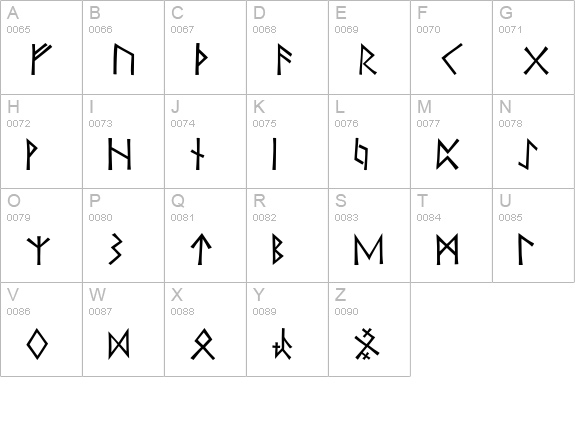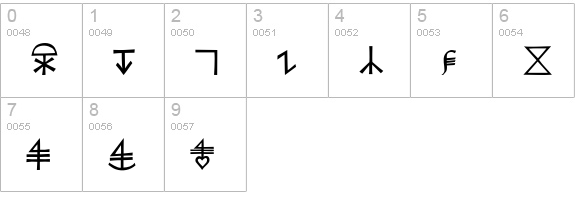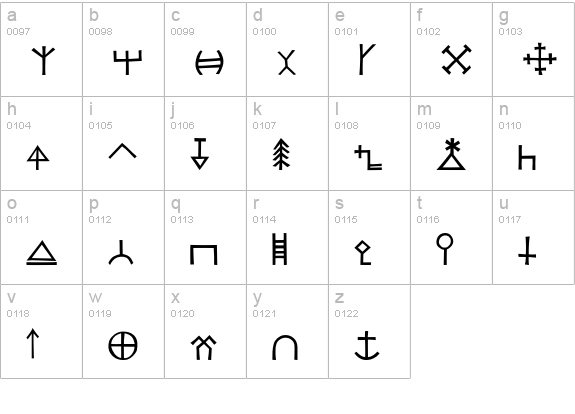
KochSignsFive Font Details
KochSignsFive is a modern and stylish font that perfectly balances elegance with a touch of playfulness. Its unique design features clean lines and geometric shapes, making it ideal for a wide range of creative projects. Whether you're designing a logo, creating eye-catching posters, or crafting invitations, KochSignsFive will add a sophisticated flair to your work. Not only does this font exude charm and versatility, but it also comes with a fantastic bonus - it's completely free! Yes, you read that right. KochSignsFive is freely available to download at FontsMarket.com, allowing you to elevate your designs without breaking the bank. Don't miss out on this incredible opportunity to enhance your projects with the beauty and professionalism of KochSignsFive font. Download it today and let your creativity soar!